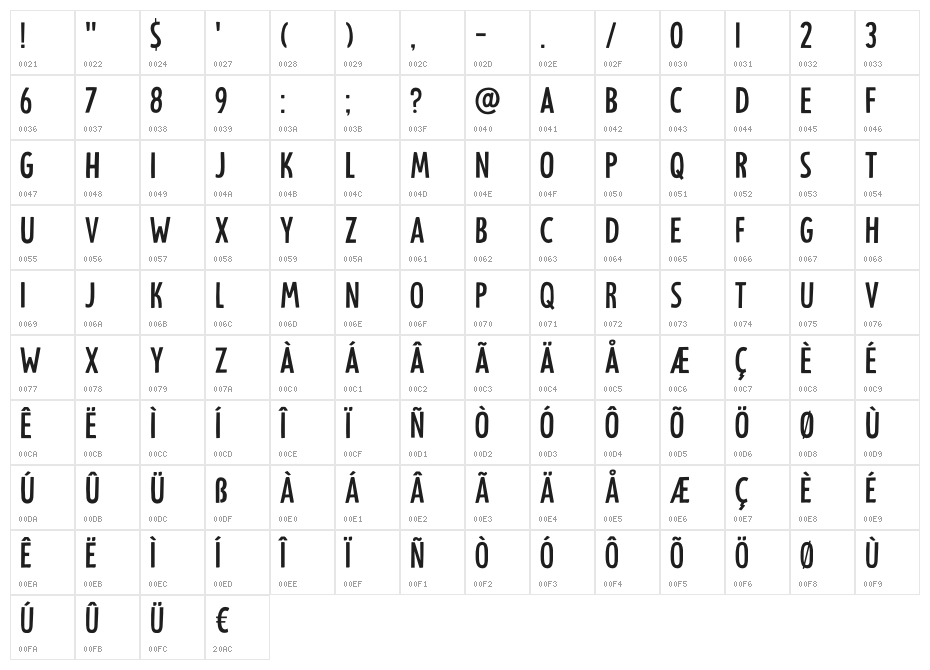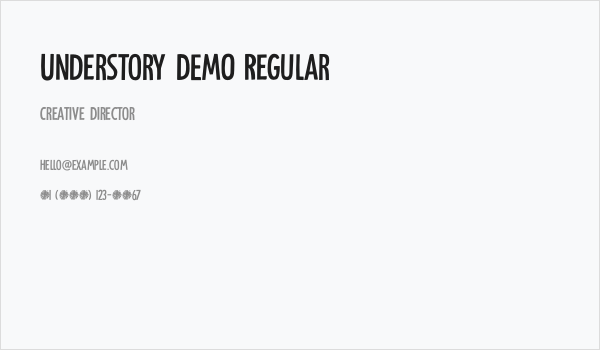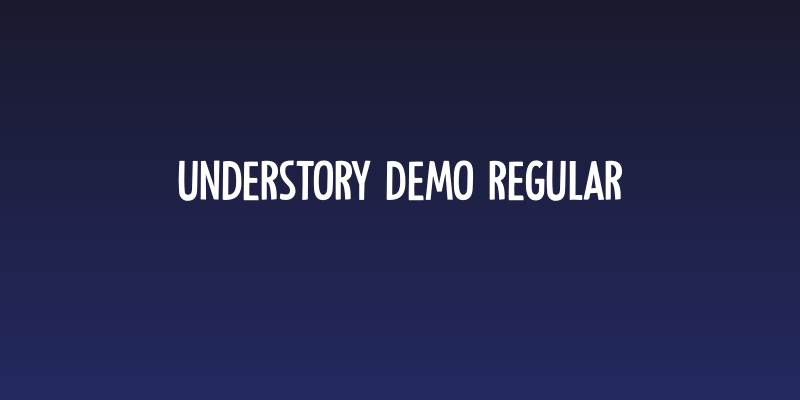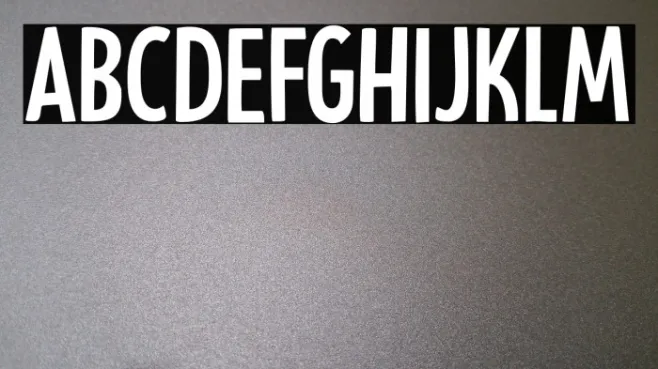
Understory DEMO Regular Font
Understory DEMO Regular Description
This font features a bold and dynamic style with a playful touch. The uppercase letters are tall and slightly condensed, giving a strong presence. The lowercase letters maintain a consistent height, complementing the uppercase with a smooth flow. The numbers are clear and legible, with a unique leaf design replacing some digits, adding a decorative element. Special characters are well-defined, maintaining the font's overall boldness. The font's style is modern with a hint of whimsy, making it suitable for creative projects.
| Proposed Projects | Ideal for branding, posters, and creative designs where a bold statement is needed. |